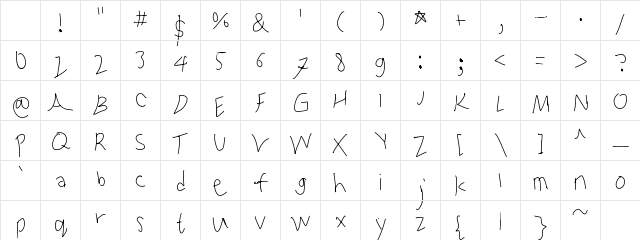
Bouncing Sans is a composed and adaptable typeface that performs quietly and consistently across a wide range of design contexts.
Pro Tip: Use Bouncing Sans in both headline and body roles to test its range before committing to a single application.